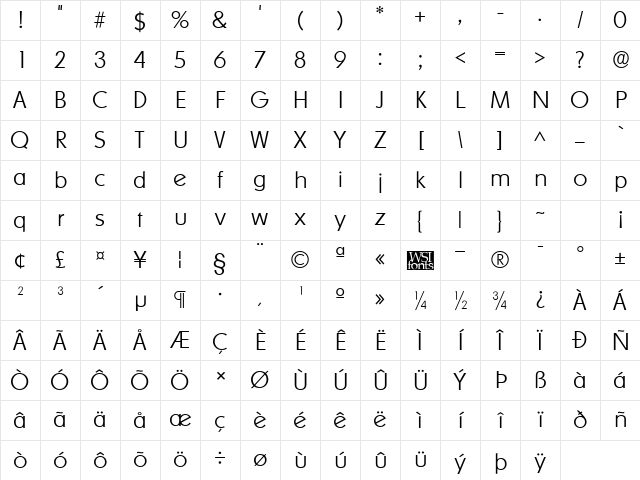
SharnayExtralight Regular
Design Context for SharnayExtralight
SharnayExtralight is a composed and adaptable typeface that performs quietly and consistently across a wide range of design contexts. Its slender proportions lend an understated elegance to any composition.